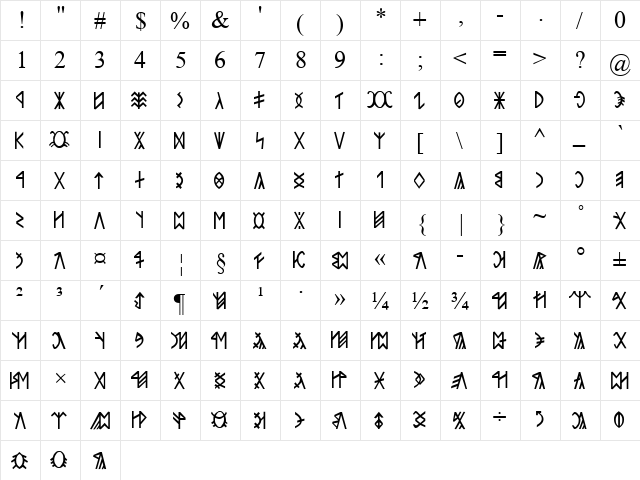
Rovas Szabvany JB Regular
Design Context for Rovas Szabvany JB Typeface
Rovas Szabvany JB offers clean, dependable letterforms without strong stylistic allegiance, making it a practical choice for designers who need flexibility.